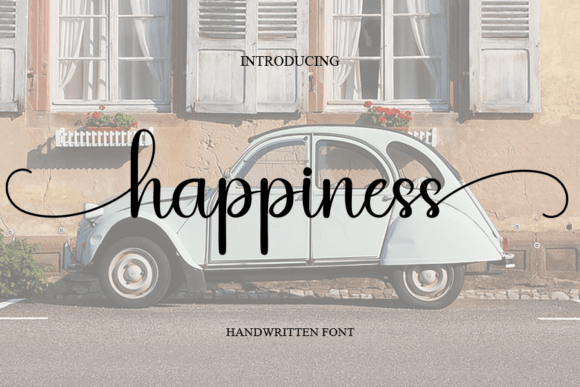
Happiness Font: Cute Handwritten Script for Cricut & DIY Projects
About the Happiness Font
We are excited to introduce Happiness Font, a must-have typeface for any serious designer. Happiness is a simple handwritten font. This versatile font has a wide spectrum of applications ranging from greeting cards to headlines and is guaranteed to add a simple and natural feel to your next project!
Happiness excels in projects requiring a friendly, approachable aesthetic. It’s ideal for headlines, short paragraphs on invitations or greeting cards, and branding elements where a hand-drawn feel is desired. Avoid using it for large blocks of body text or UI elements; its informal nature hinders readability in extended use.
Pairing Happiness with a clean sans-serif like Lato or Open Sans provides a strong contrast, balancing its informal charm with modern clarity. For a more traditional feel, consider pairing it with a serif typeface such as Merriweather or Playfair Display. These pairings create visual harmony without overshadowing Happiness’s unique character.
The font projects a light-hearted, optimistic personality, best suited for brands associated with warmth, creativity, and approachability. Think artisanal food brands, children’s products, or handmade crafts.
Happiness Font Usage Examples
Happiness Font Example